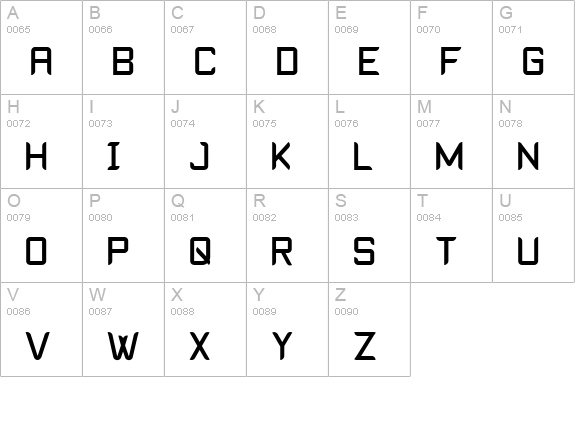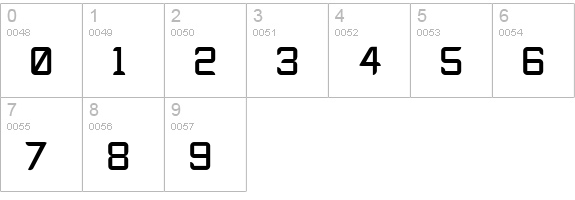
Epyval Font Details
Epyval font is a modern and elegant typeface that exudes sophistication and style. Its sleek lines and graceful curves make it perfect for a wide range of design projects, from branding to editorial design. Epyval font is versatile and easy to read, making it suitable for both headings and body text. One of the best things about Epyval font is that it is completely free to download. You can get your hands on this beautiful typeface without spending a dime at FontsMarket.com. Whether you are a designer looking to add a touch of class to your work or a business owner in need of a fresh new look for your branding, Epyval font is sure to impress. Download it today and elevate your designs with this stunning typeface.